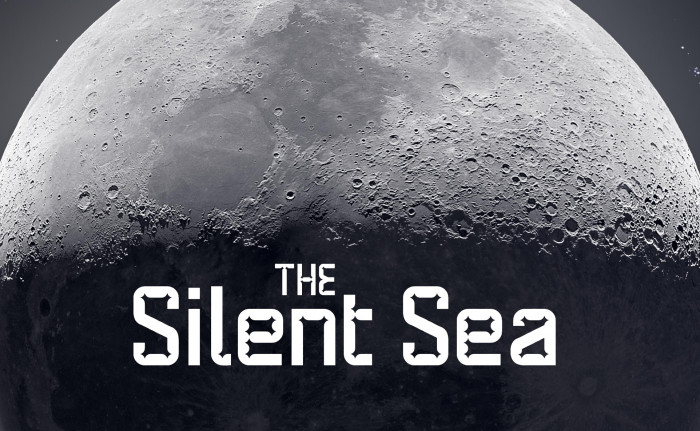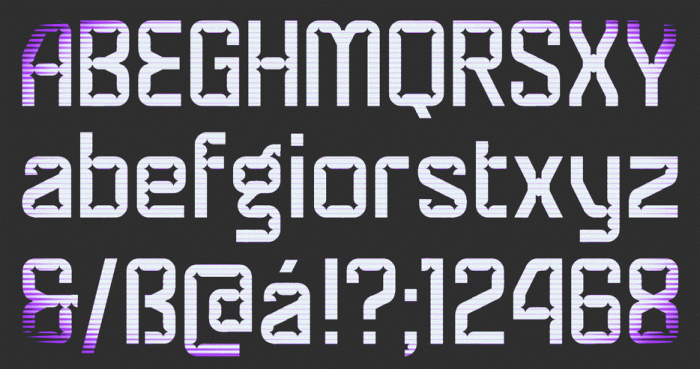
Inspired by the inner inktraps of Rocky Road by Baharak Pourmirzajan. An extra "g" is at the "±" glyph. The name of the font refers to the science-fiction korean series "The Silent Sea".